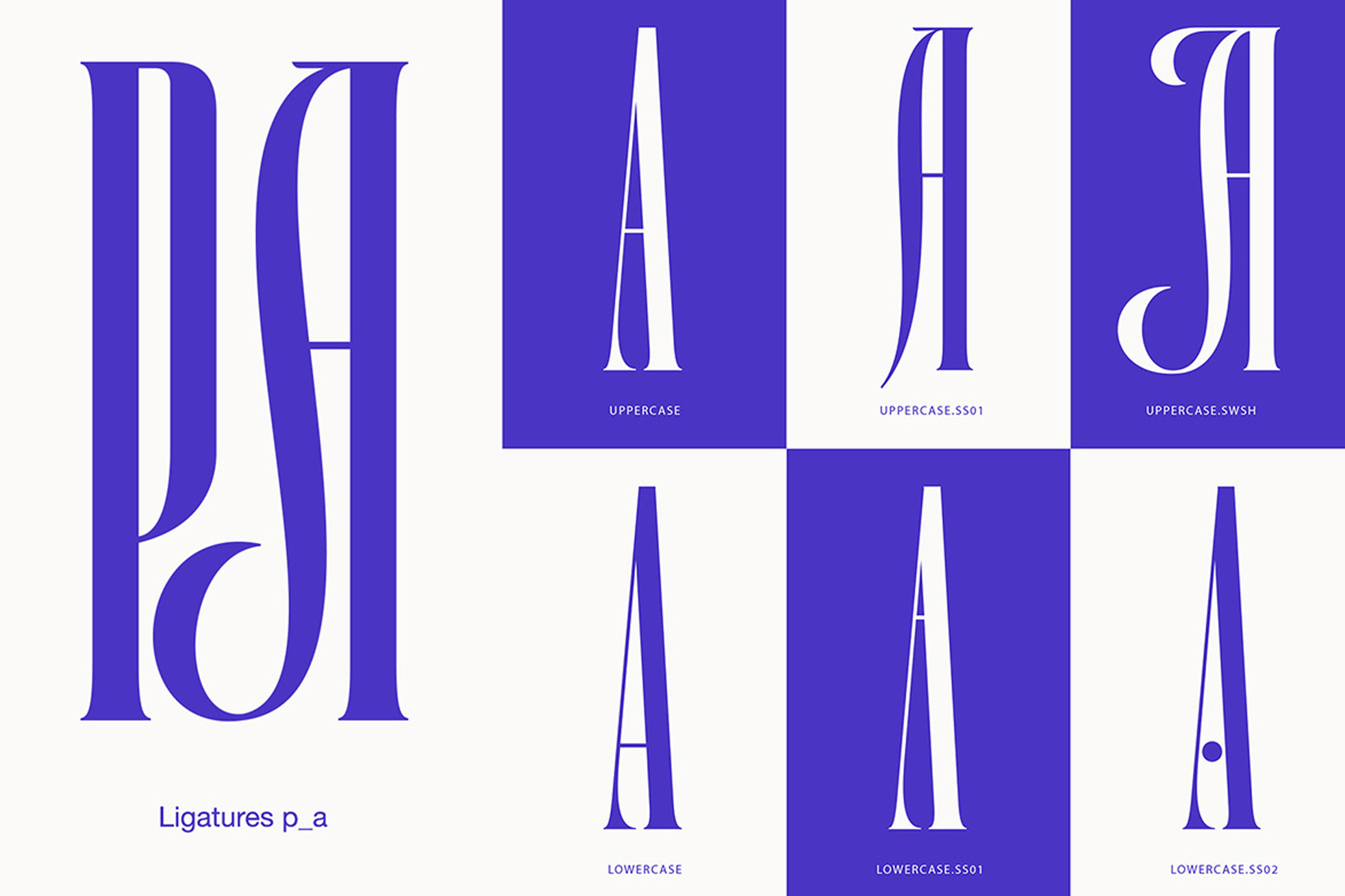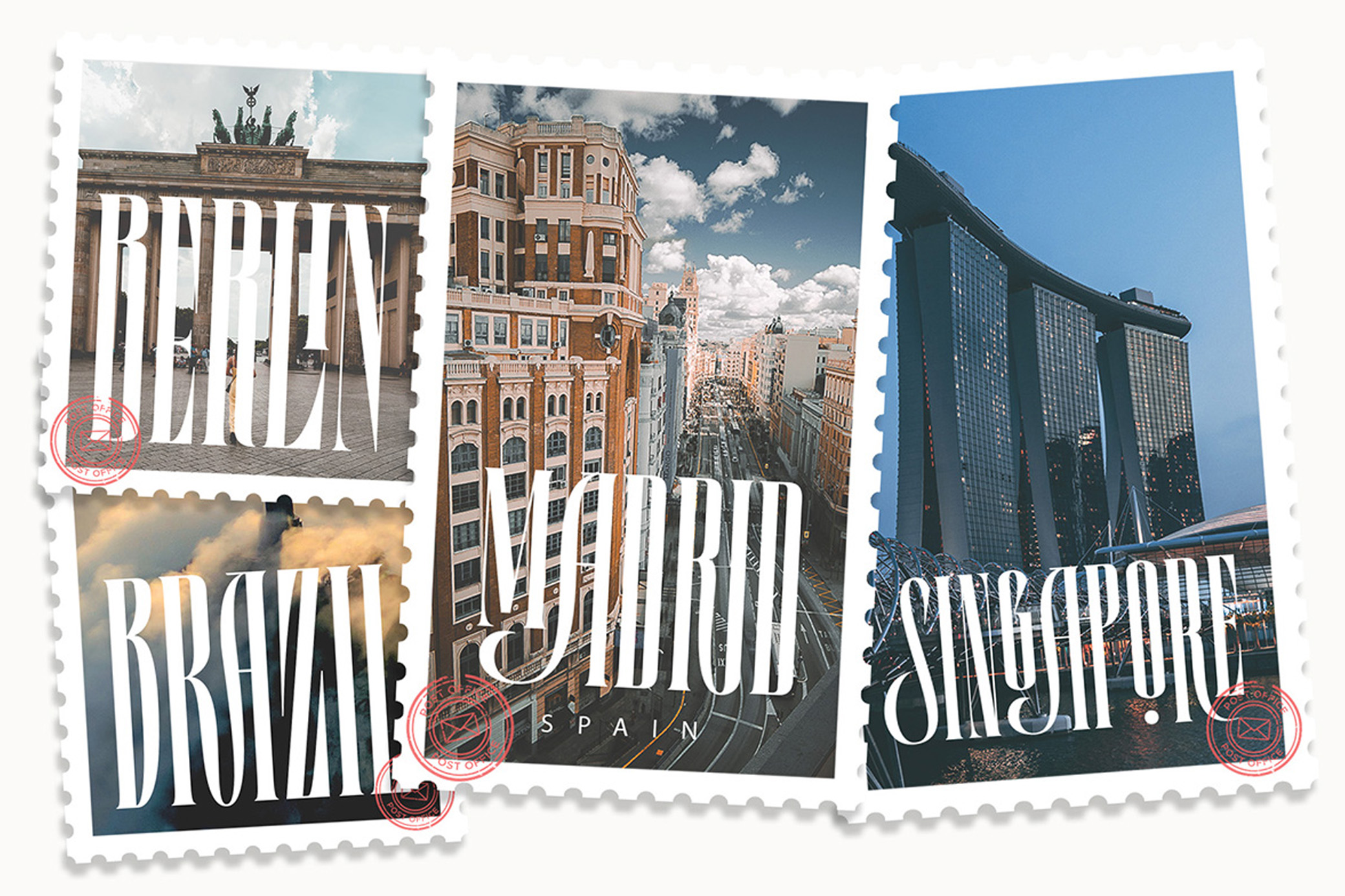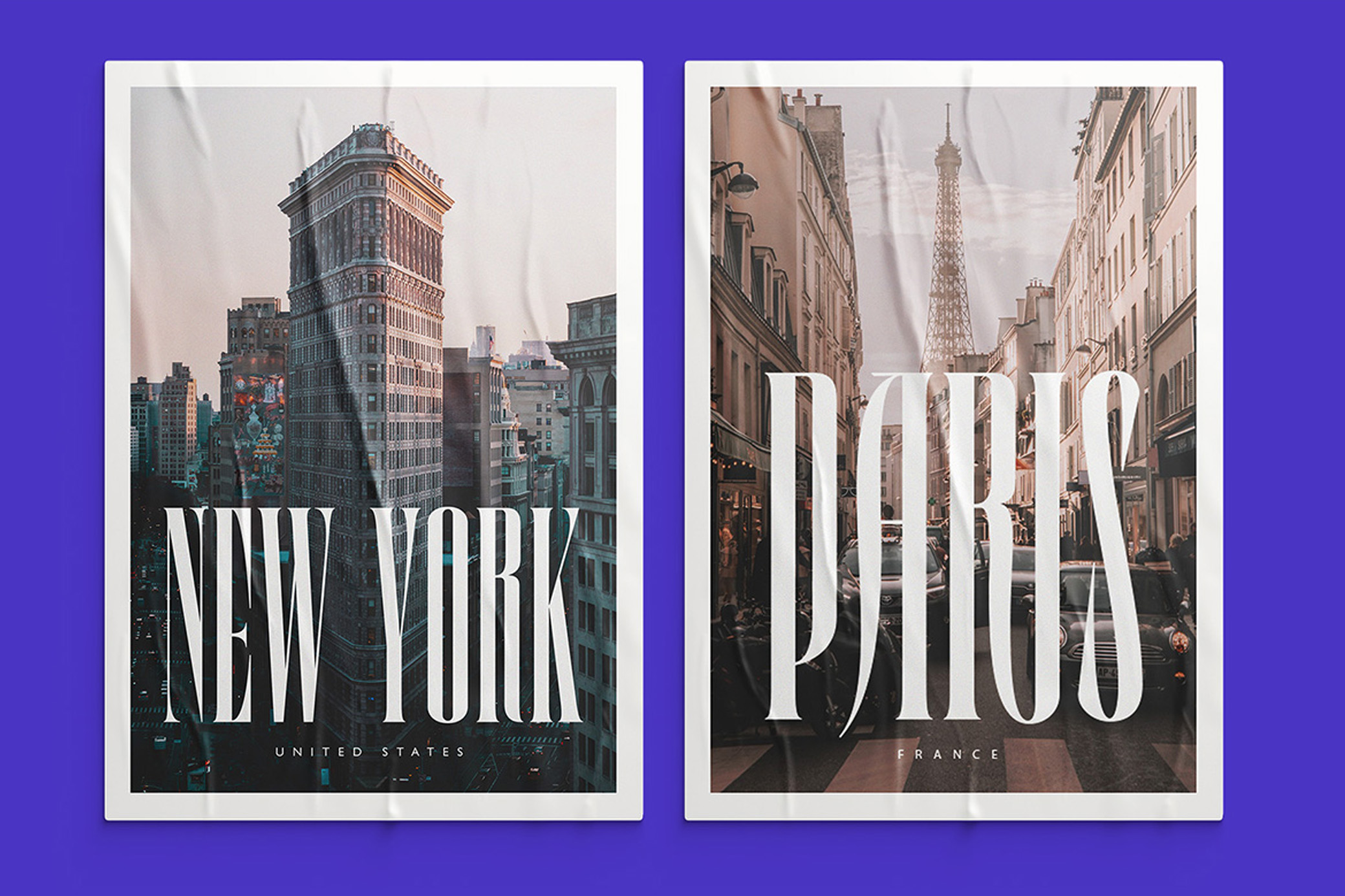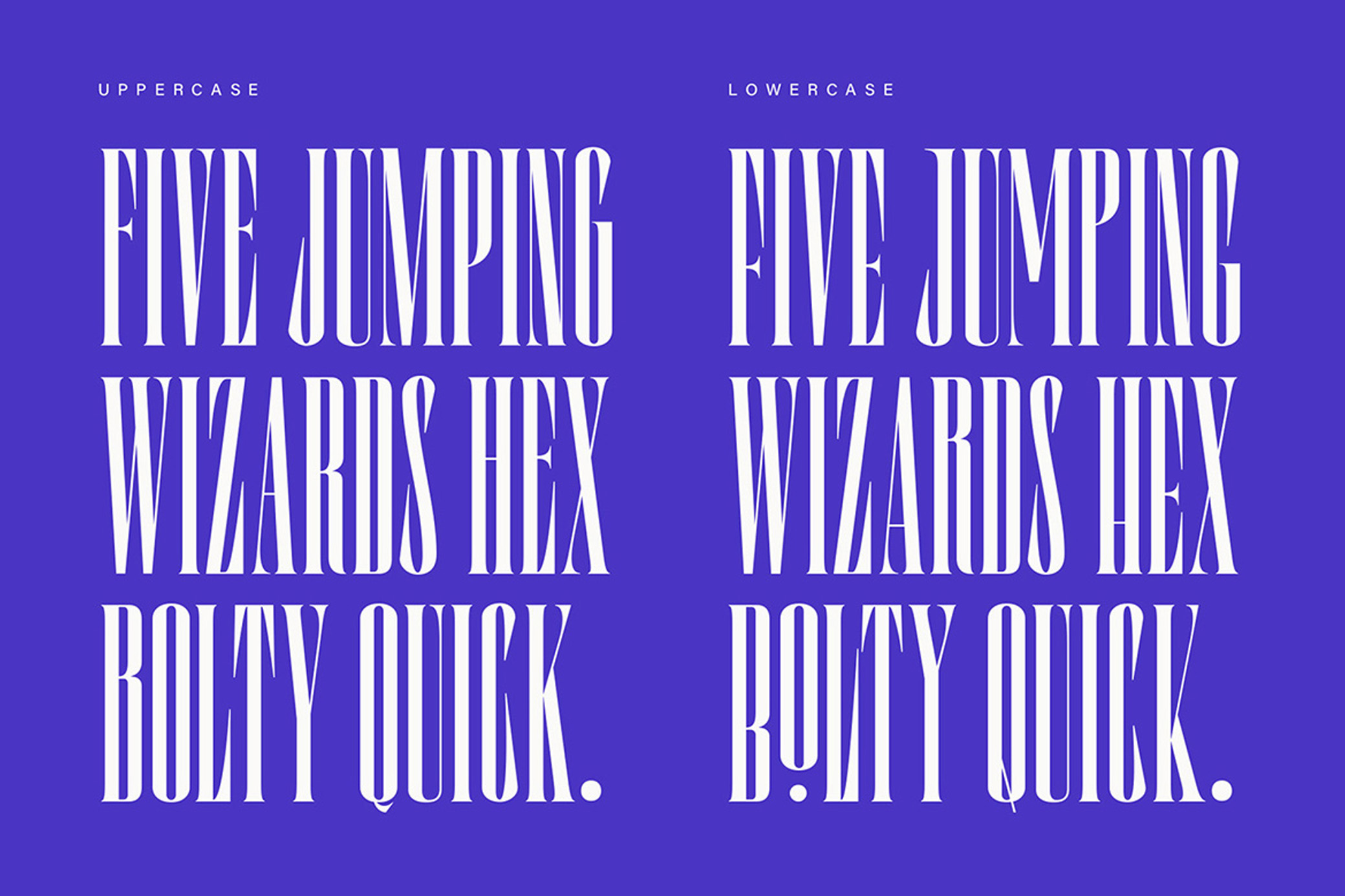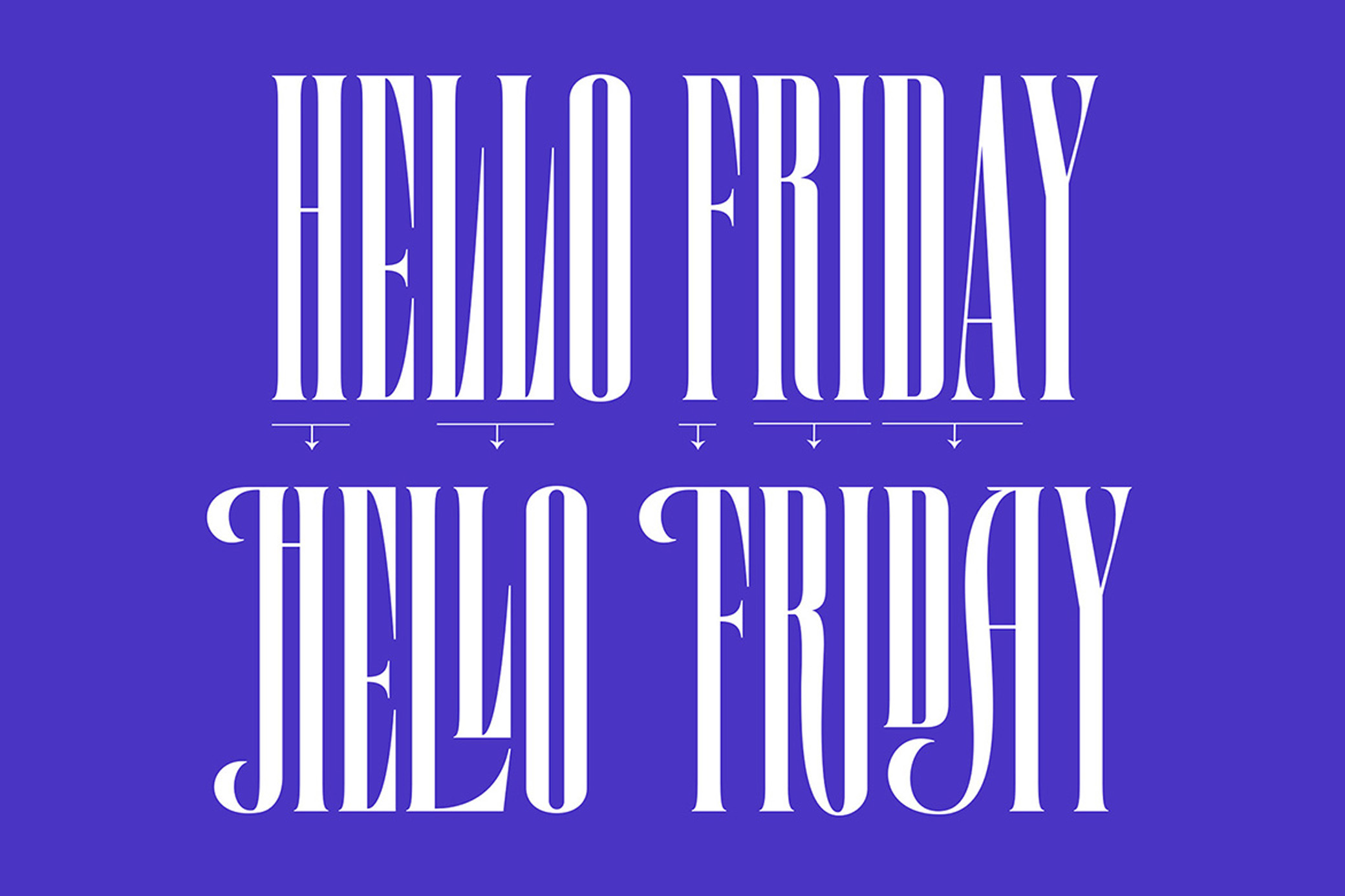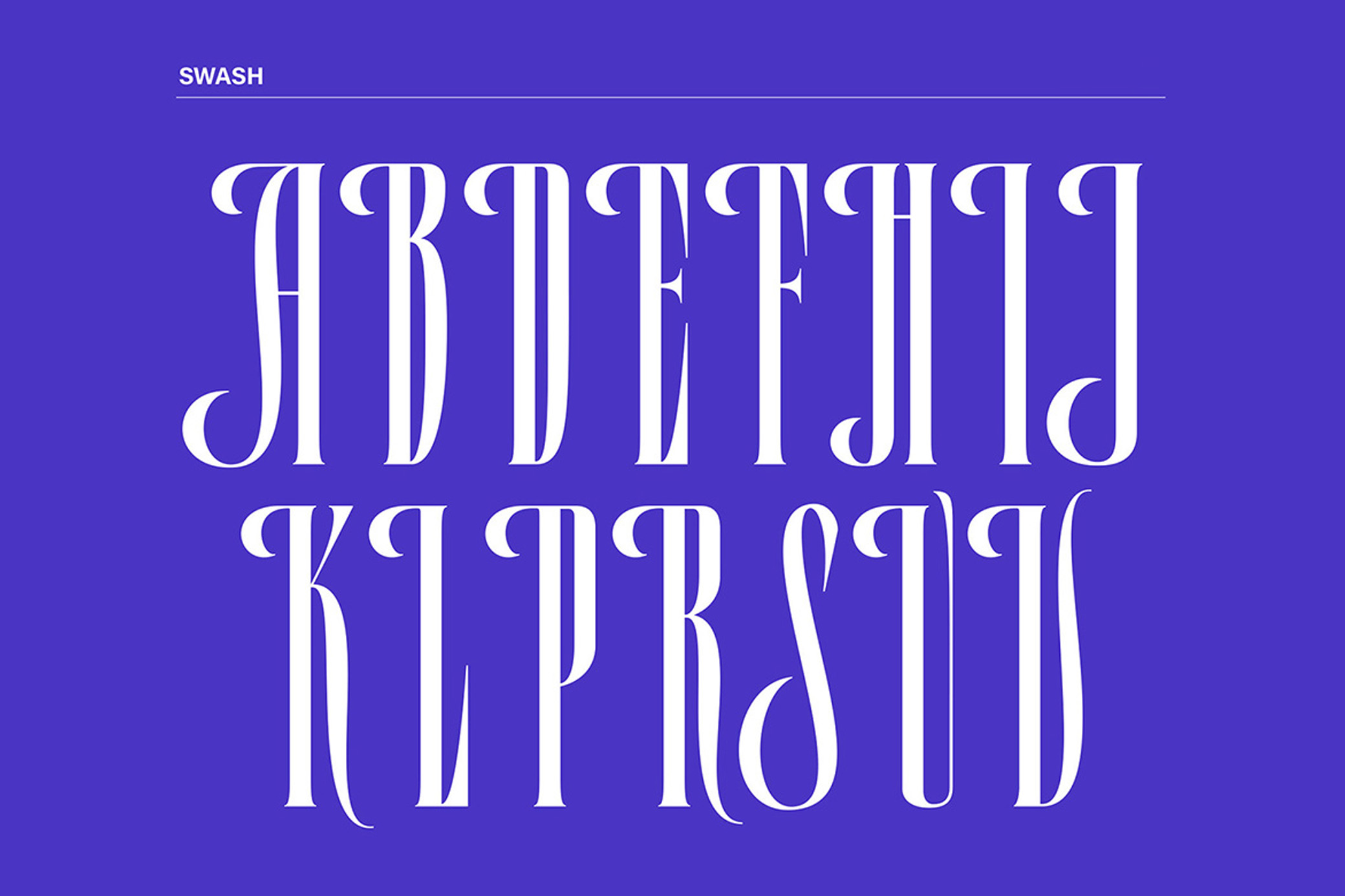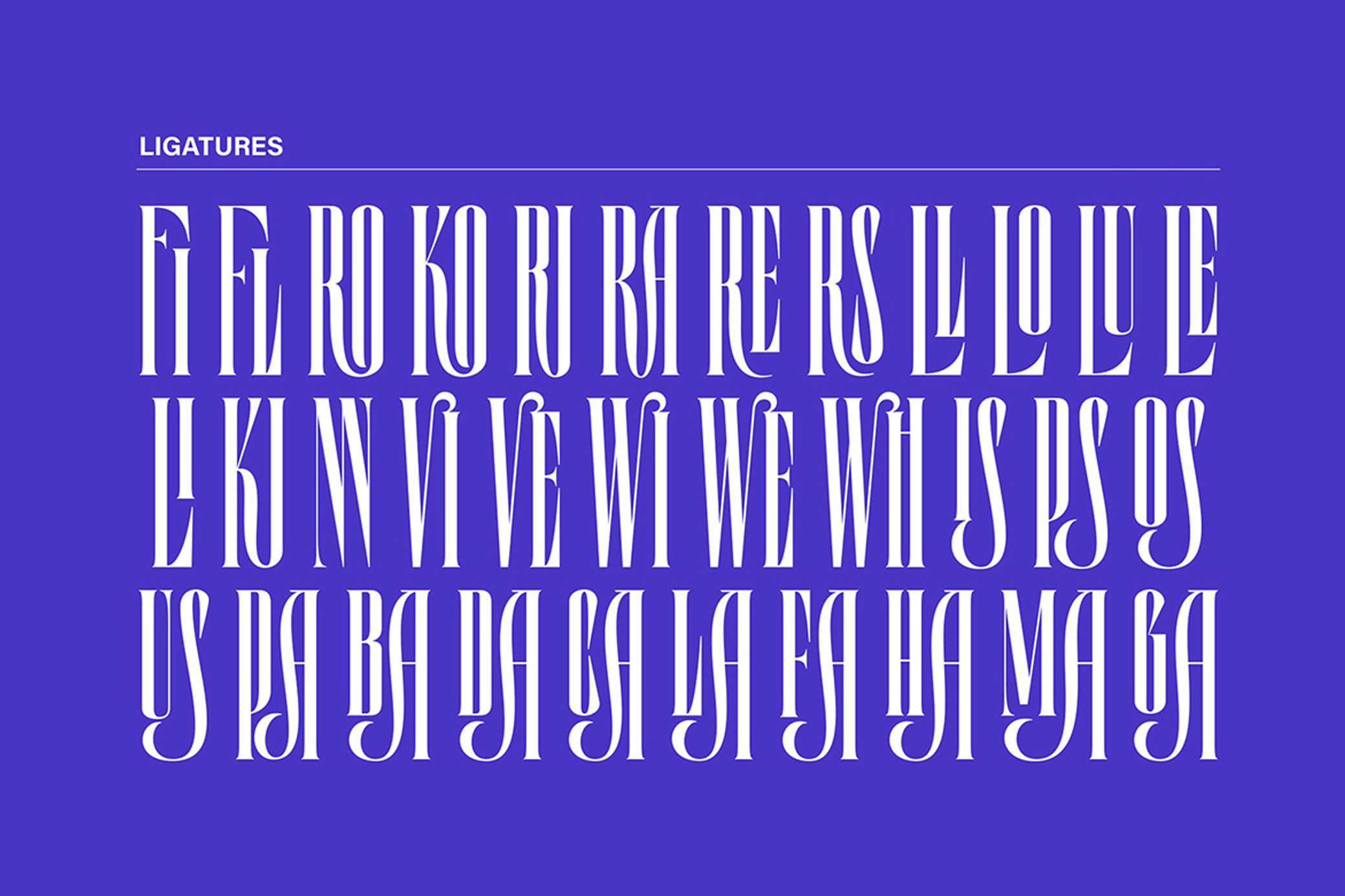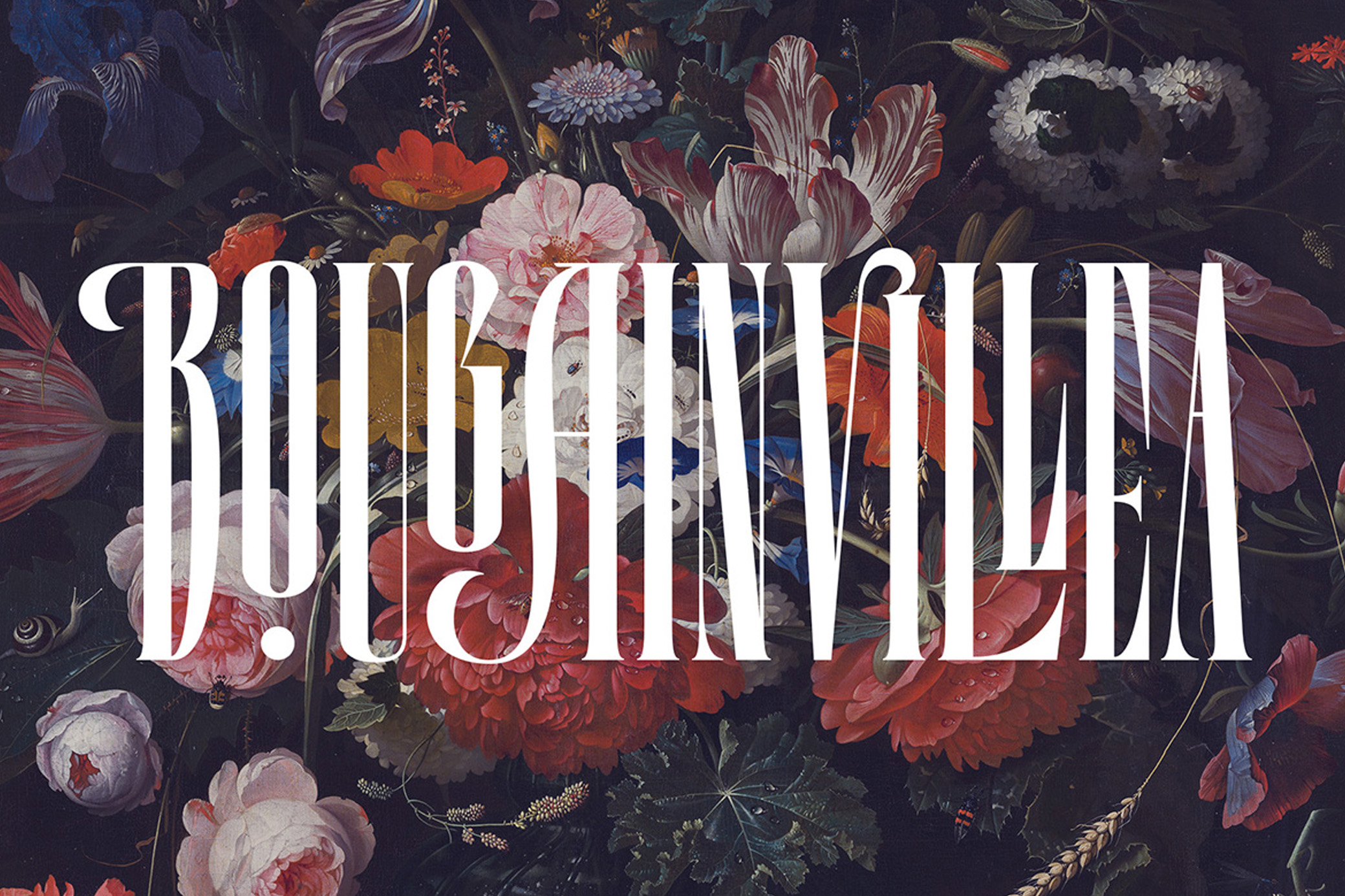
Lorida — Condensed Display
Exquisite versatility — that's the most accurate description of Lorida. How it works: you place Lorida font over any random image, and suddenly, you've got yourself the cover of a high-fashion magazine.
We don't know how this magic works but it turns even the bizzarest of pics into sophisticated messages. This display font doesn't just sit on a page; it commands attention with its elegant curves. The delicate balance of condensed forms and graceful swashes makes it ideal for fashion editorials, luxury branding, or the most stylish of invitations ever. The comprehensive set of glyphs includes upper and lower case letters, swashes, and stylistic alternates, ensuring you’ll never run out of opportunities to play around.